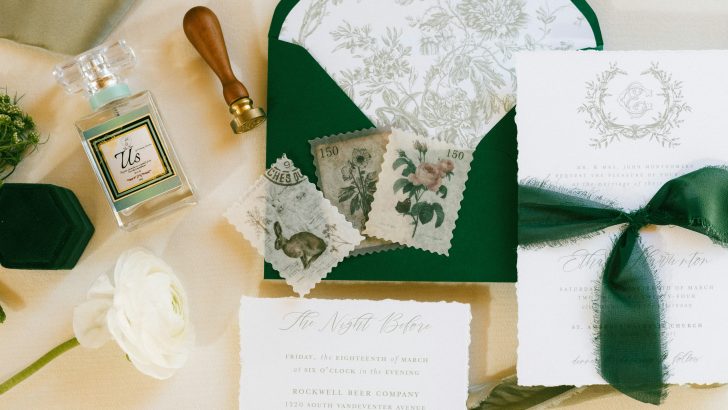
Wedding Fonts: 20 Elegant Typefaces for Invitations and Branding
Typography is one of the most important elements in wedding design. From invitation suites to wedding websites and luxury branding, the right font helps create a memorable and emotional experience.
Wedding typography should feel elegant, romantic, and timeless. Whether you’re designing invitations for a modern celebration or building a luxury wedding brand, selecting the perfect typeface can elevate the entire aesthetic.
In this guide, we’ll explore the best wedding fonts for invitations and branding in 2026.
Why Wedding Typography Matters
Wedding design is built around emotion.
Typography helps communicate:
- Romance
- Elegance
- Sophistication
- Luxury
- Personality
A carefully chosen font creates a cohesive visual identity across every touchpoint.
What Makes a Great Wedding Font?
Elegant Letterforms
Wedding fonts should feel graceful and refined.
Timeless Appeal
The best wedding typography remains beautiful for years.
High Readability
Guests should easily read invitations and event details.
Versatility
A wedding font should work across print and digital materials.
Popular Wedding Font Styles
Luxury Serif Fonts
Serif fonts remain a favorite for high-end wedding branding.
Perfect for:
- Invitation suites
- Wedding logos
- Editorial layouts
Romantic Script Fonts
Script typography creates a personal and emotional touch.
Ideal for:
- Couple names
- Signature logos
- Decorative headings
Editorial Fonts
Magazine-inspired typography adds sophistication.
Minimal Sans Serif Fonts
Modern weddings often combine serif and sans serif typography.
Wedding Design Trends in 2026
Luxury Minimalism
Elegant typography with generous white space.
Editorial Wedding Branding
Inspired by fashion magazines and luxury publications.
Romantic Serif Revival
Classic serif fonts continue to dominate premium wedding design.
Personalized Typography
Custom typography adds exclusivity and uniqueness.
Best Uses for Wedding Fonts
Wedding typography can be used for:
- Invitations
- Save-the-date cards
- Wedding websites
- Bridal branding
- Event signage
- Packaging
- Luxury stationery
Common Typography Mistakes
Avoid these mistakes:
- Overly decorative fonts
- Poor readability
- Too many font combinations
- Trend-focused typography
- Inconsistent branding
How to Choose the Right Wedding Font
Ask yourself:
- Is the font romantic and elegant?
- Does it match the wedding style?
- Will it print clearly?
- Does it work across multiple materials?
The best wedding fonts balance beauty and readability.
Final Thoughts
Wedding typography plays a major role in creating memorable experiences. The right font can transform a simple invitation into a luxury keepsake.
Whether you’re designing for a wedding planner, invitation studio, bridal brand, or luxury event business, investing in beautiful typography helps create timeless and unforgettable designs.